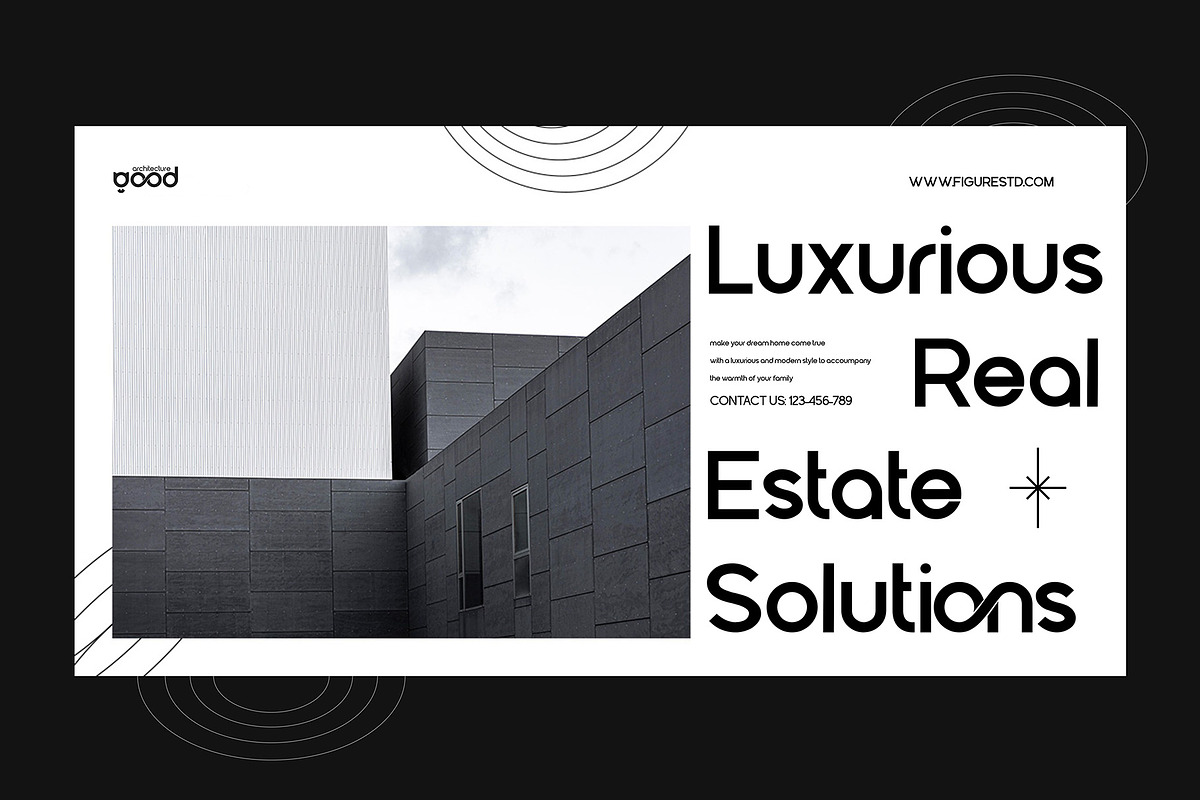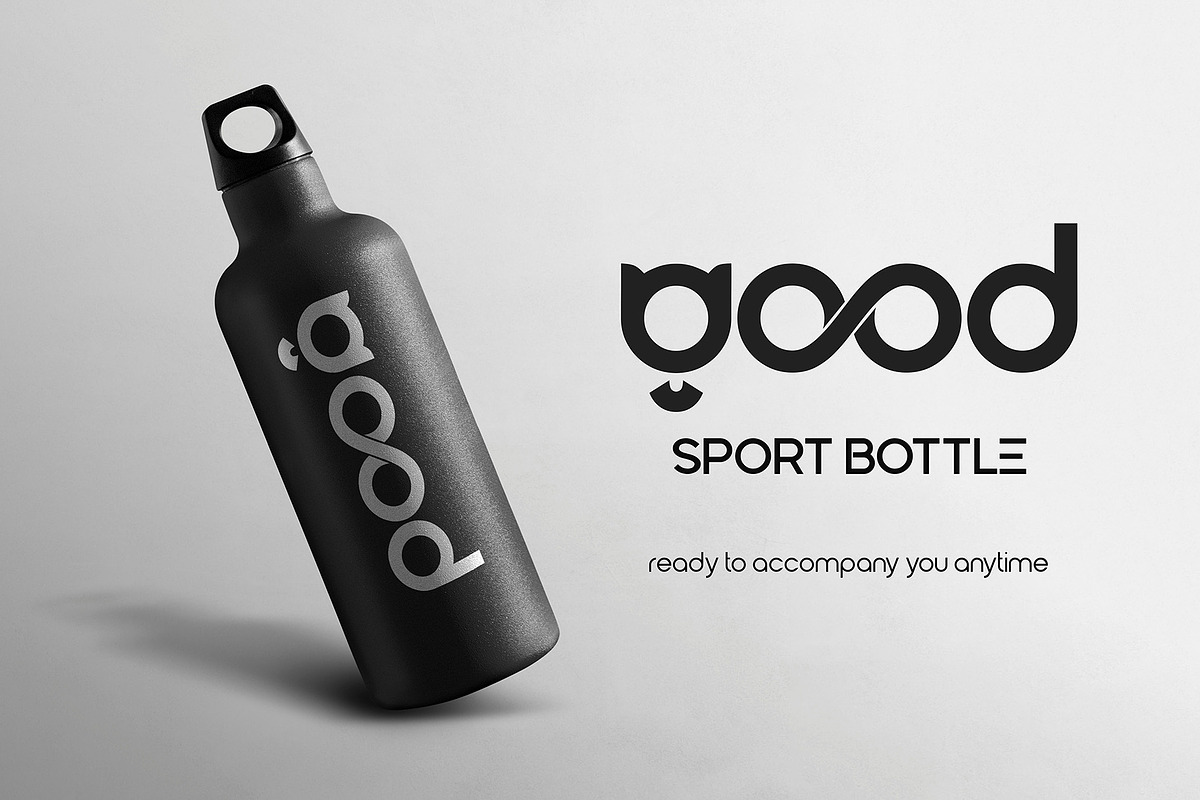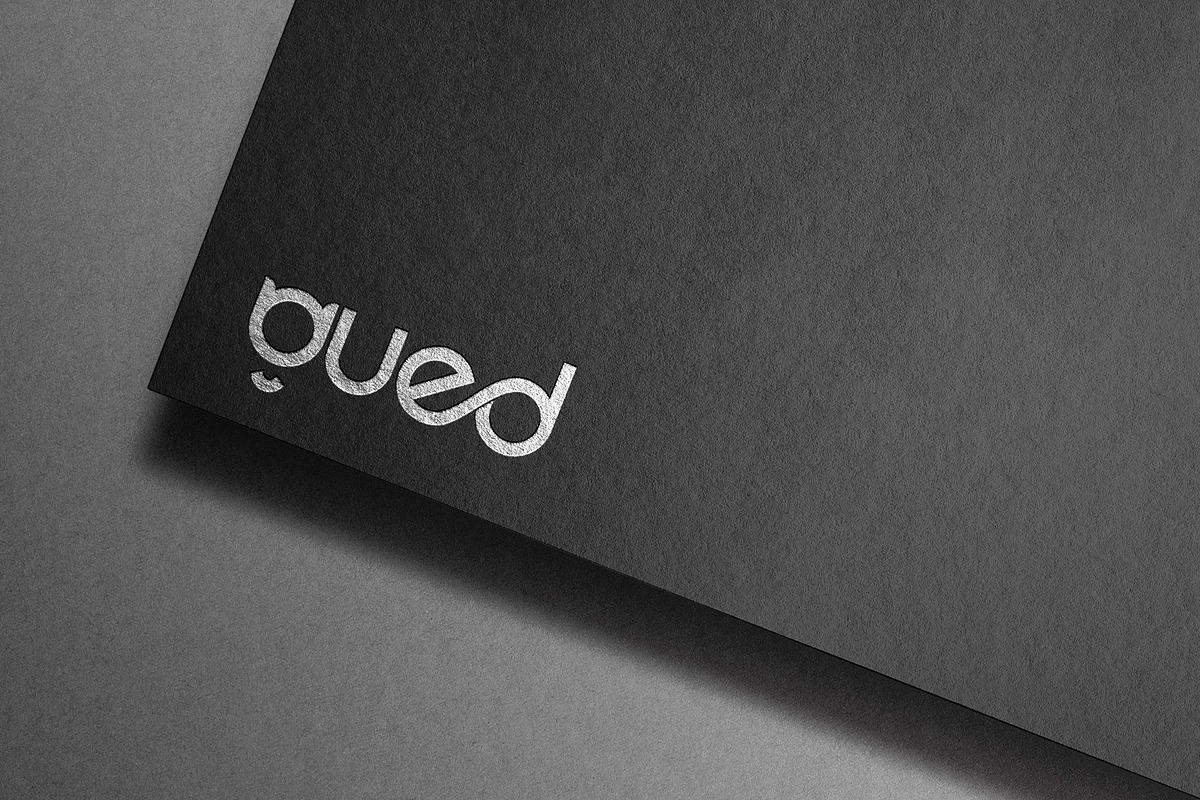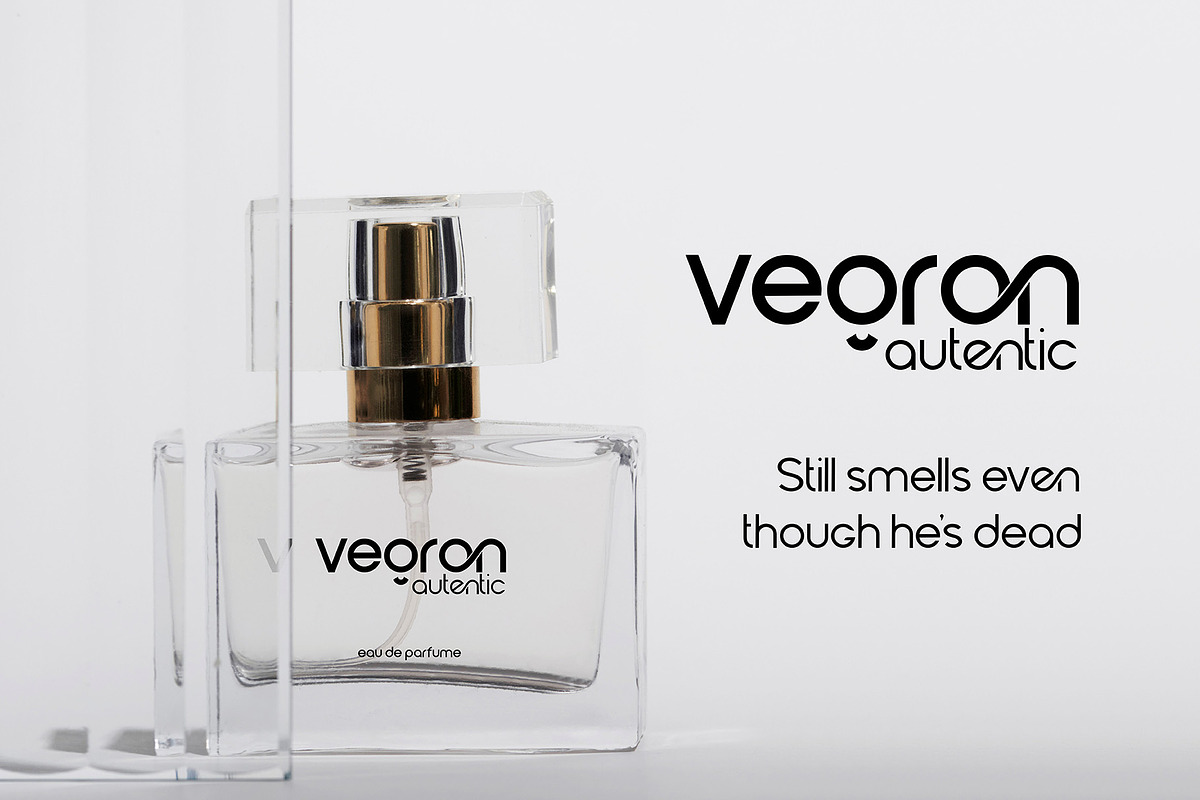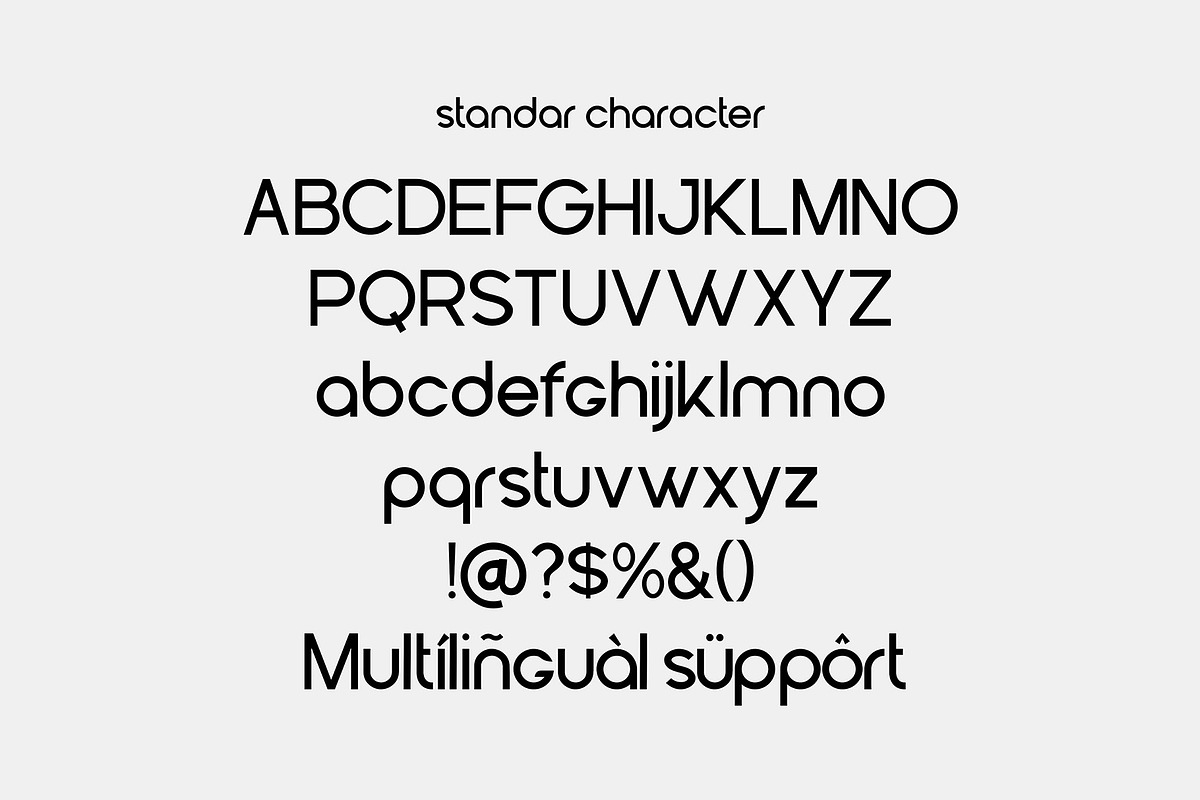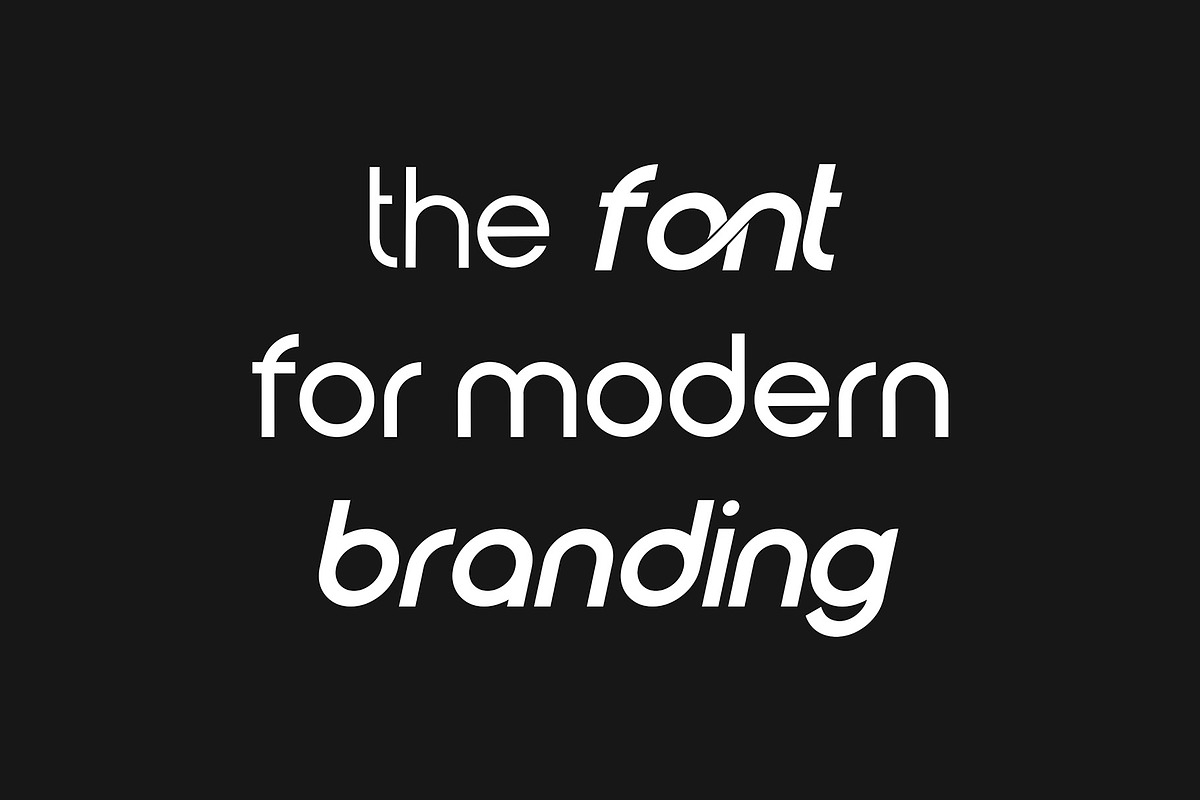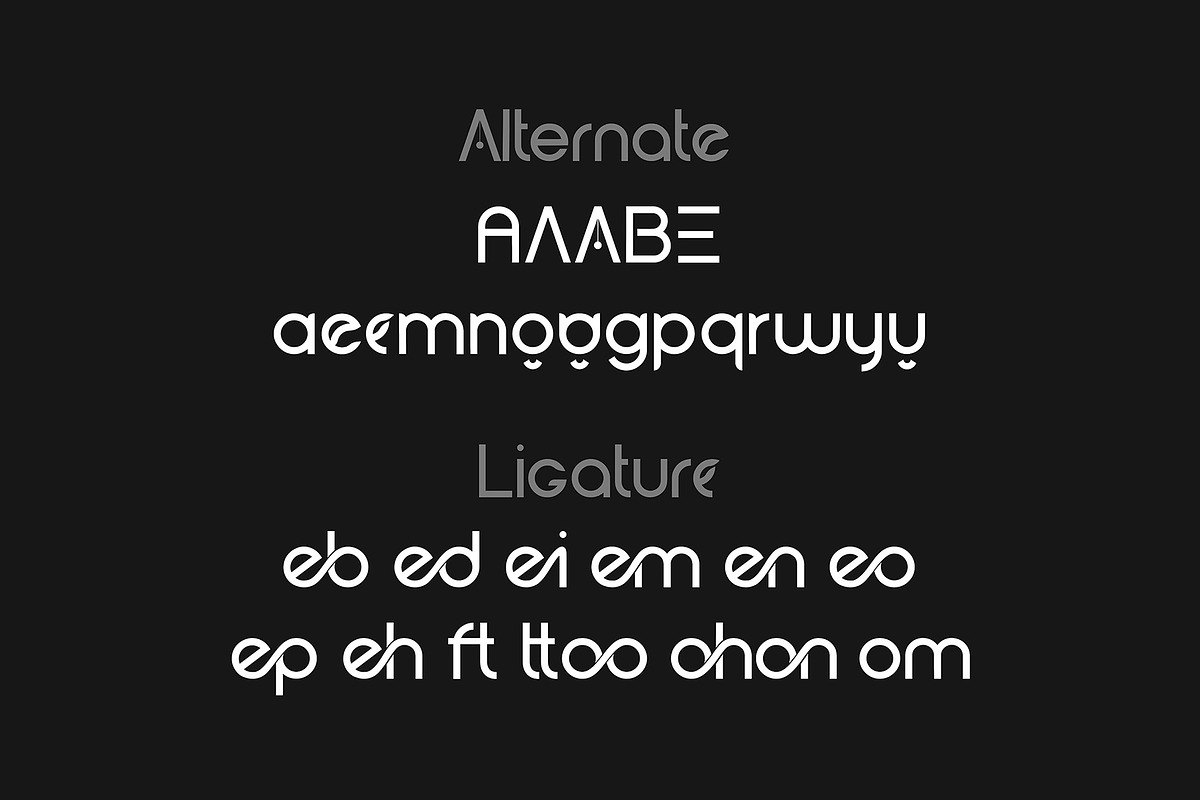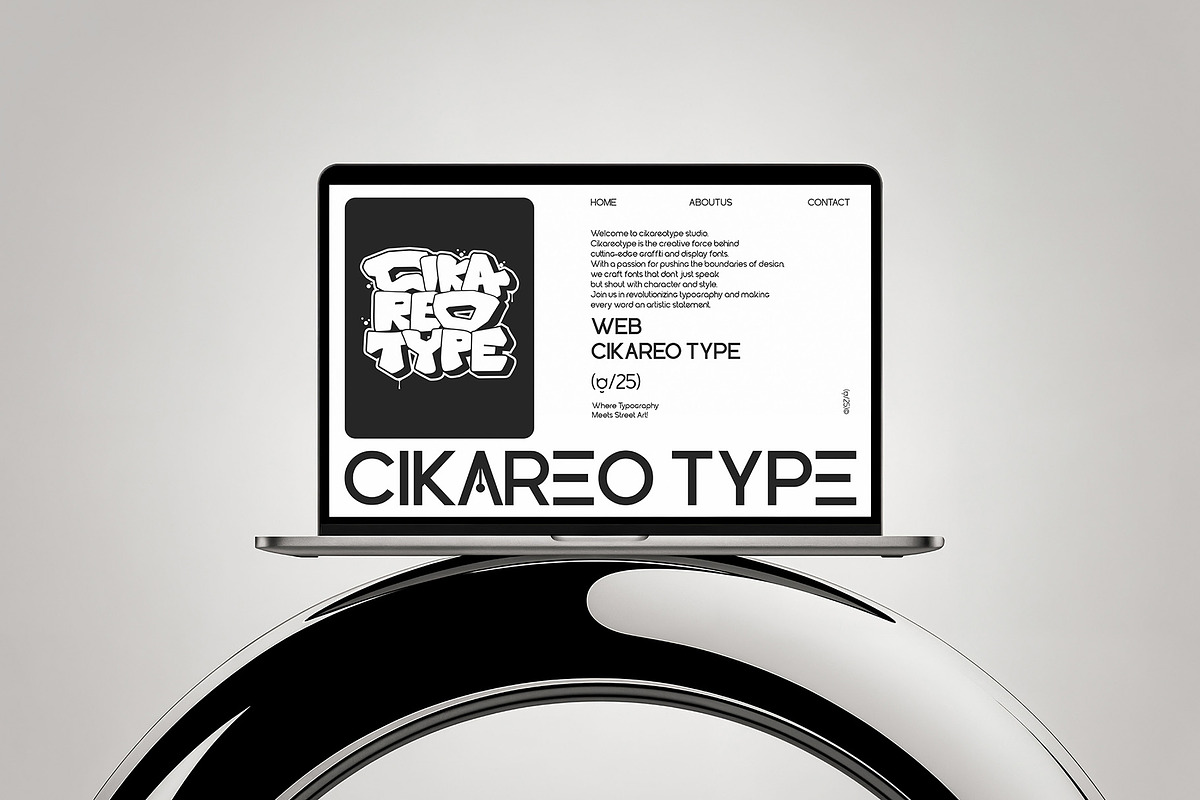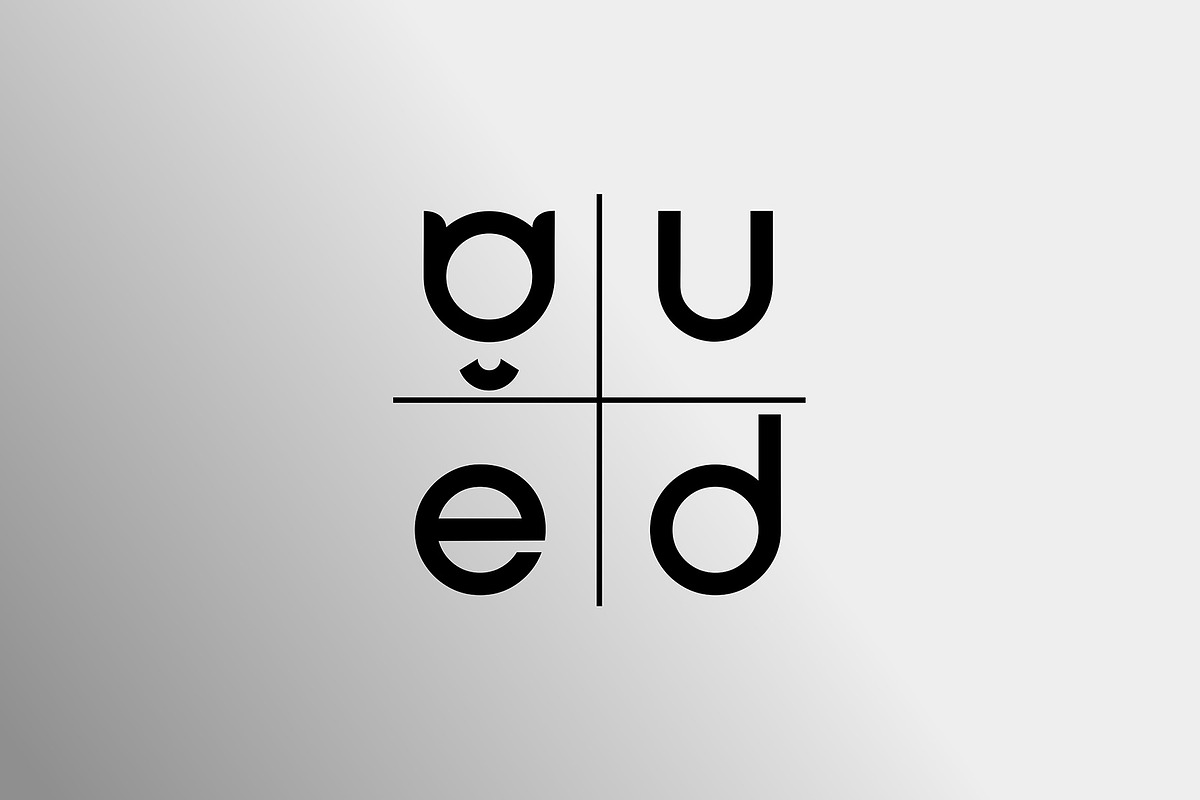
Gued – Geometric Sans Serif Font
Gued – Geometric Sans Serif Font is a modern, clean, and precisely balanced typeface that brings structure and clarity to every design. Built with geometric proportions and smooth letterforms, Gued offers a perfect balance between minimalism and elegance—ideal for professional layouts, editorial titles, logo design, corporate presentations, and digital interfaces.
Every weight of Gued is carefully designed to create visual harmony, whether you’re working on print or web. The font includes Light, Regular, and Bold styles, each paired with its Italic version to give designers complete flexibility.
With its geometric construction, Gued maintains consistent rhythm and spacing, ensuring readability and sophistication at any size. From bold headlines to fine body text, it adapts beautifully to diverse visual compositions.
- Uppercase, Lowercase, Numbers & Punctuations for complete usability.
- Support Multilingual, allowing global language compatibility.
- Alternates & Ligatures for creative and refined typography.
- Six Styles Included – Light, Regular, Bold, and their Italics.
- Geometric Sans Serif Structure with clean, modern proportions.
- Perfect for Branding, Editorials, UI, and Print Projects.
- High Readability & Consistency in both digital and print designs.
Why Designers Love It Designers love Gued because it combines simplicity with versatility. The geometric base gives it a strong, modern personality, while the alternates and ligatures allow subtle creative flair. Its wide range of weights and italics makes it easy to establish visual hierarchy in design systems, presentations, websites, and publications.
Whether used for body text or standout headlines, Gued delivers perfect legibility and aesthetic balance. The multilingual support ensures it works seamlessly in international projects, while the six font styles make it an all-in-one solution for cohesive branding and layout design.
Gued’s timeless, structured design helps professionals maintain a polished and confident look without sacrificing creativity. It’s a font that adapts, evolves, and performs beautifully across every medium.
If you’re looking for a geometric sans serif font that balances form and function, Gued is the ideal choice. Its precision, readability, and multiple styles make it a powerful tool for designers who value clarity and impact. Elevate your next project with Gued and experience how geometry and elegance can redefine your visual storytelling.